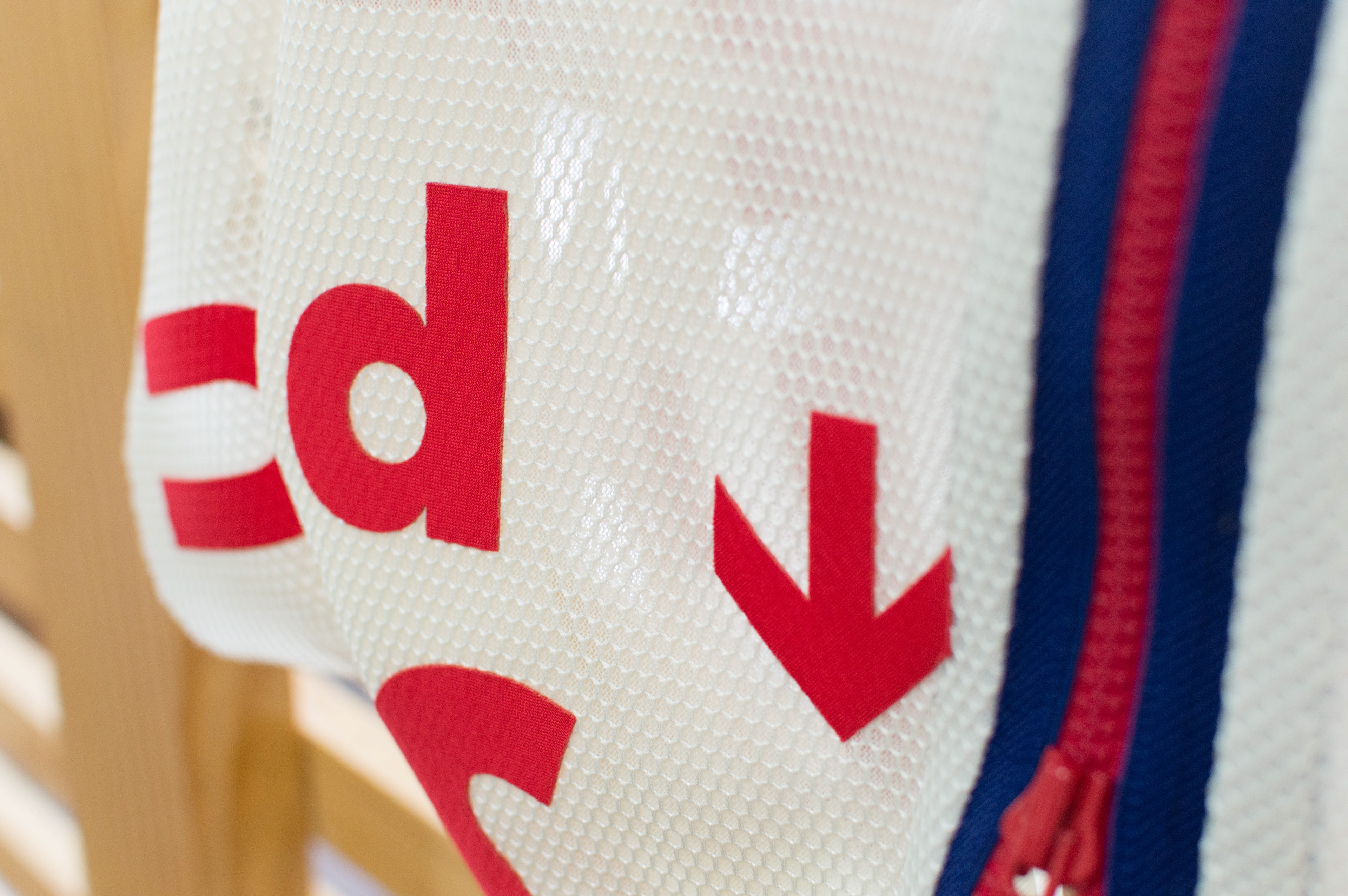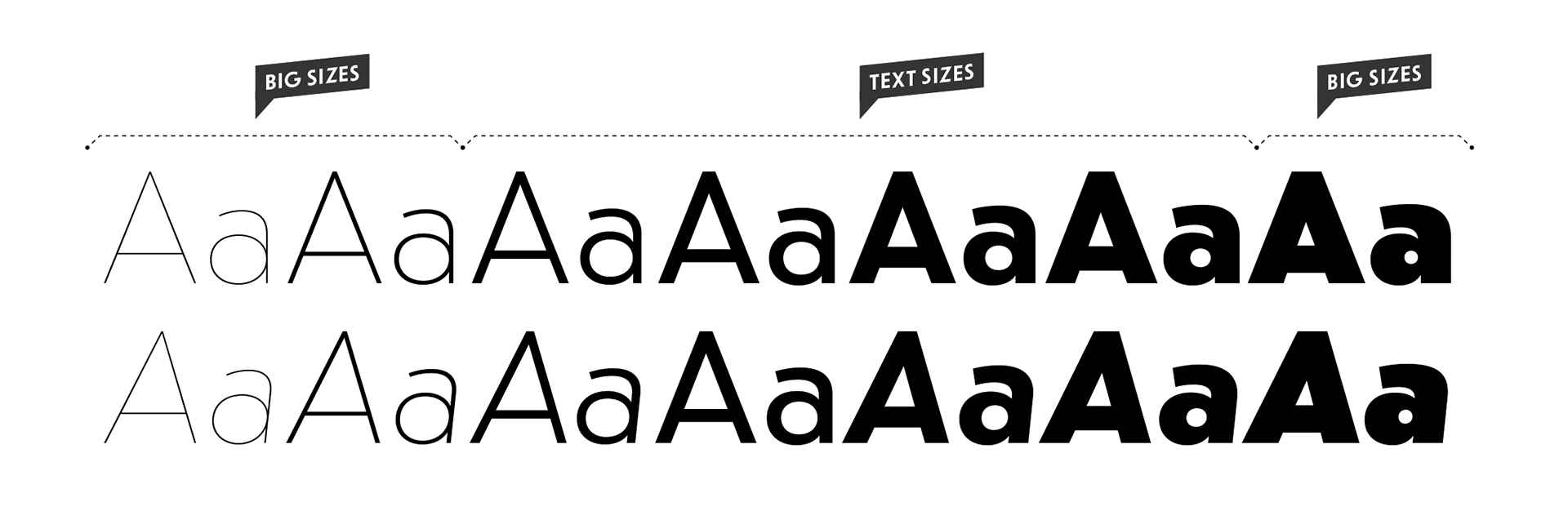
dT Jakob started as a revival by Gustavo Soares for Paul van der Laan’s class at the Type and Media Masters, in The Hague, NL – back in 2007. There are quite a few excellent geometric sans typefaces available, but we did want to make our contribution and have a fine geometric face to offer. dT Jakob was born out of Erbar, by Jakob Erbar, one of the very first geometric sans, released in metal around 1926. Our goal was to make a versatile typeface, that handles display and text typography beautifully. To achieve that we designed a complete range of weights, matching italics and lots of OpenType Features. Hope you enjoy it :D
EXTENSIVE WEIGHT RANGE WITH MATCHING ITALICS
Our goal with dT Jakob was to provide a robust and versatile typeface for both display and text typography.
While the lighter weights are ready for really big sizes, there is a traditional range of text sizes and a Black weight that is a blast – all with matching italics.​​​​​​​
POINTY ALTERNATES
We just had to design these pointy caps – they add so much flavour to the words and are such a nice match to other geometric shapes… Access via OT All Alternates, aka Stylistic Set 1, or navigate the Glyphs Panel/Flyout Menu to check what the options are.
STRAIGHT TERMINALS FOR TIGHTER SETTINGS
Ok, geometric typefaces are not the best option if you are looking for a tight setting. BUT, we crafted straight terminals that will use less space while delivering a fantastic humanistic touch to the geometry.
Access via OT Straight Terminals, aka Stylistic Set 2.​​​​​​​
READY FOR THE BIG BANG!
Hairlines are tough to design, but we did our part.
SHAPE THE MESSAGE WITH DISTINCT SHAPES
With dT Jakob you can go geometric all the way, or use more functional shapes when performance is needed. There are many alternates to fit your typographic needs.
Access everything through the OT All Alternates, aka Stylistic Set 1, or navigate the Glyphs Panel/Flyout Menu to check what the options are.
HIT THAT TEXT WITH PUNCHY QUOTES
If by any means you want to add extra spices to the mix, grab dT Jakob’s as
OT Punch Quotation Marks, aka Stylistic Set 4, or from the Glyphs Panel.
VARIOUS FIGURES, FOR VARIOUS NEEDS
Yes, this is mostly a display typeface, but we did tailor it for text as well. So, if you want to use dT Jakob
for copy just turn on Oldstyle Figures [1] – readers will appreciate. Now, if you want to rock the boat,
go for OT Geometric Figures [2], aka Stylistic Set 3.
WE GOT YOUR TABLE & INTERFACE COVERED
Tabular Figures, as these mono-spaced numerals are known, will improve your graphs & tables. We have
also made them evenly spaced accross all weights – because we share your passion for neat typography.
2 SETS OF ARROWS
Arrows are personal, so we designed two sets. Access via Glyphs Panel, or Unicode 2190–2199.